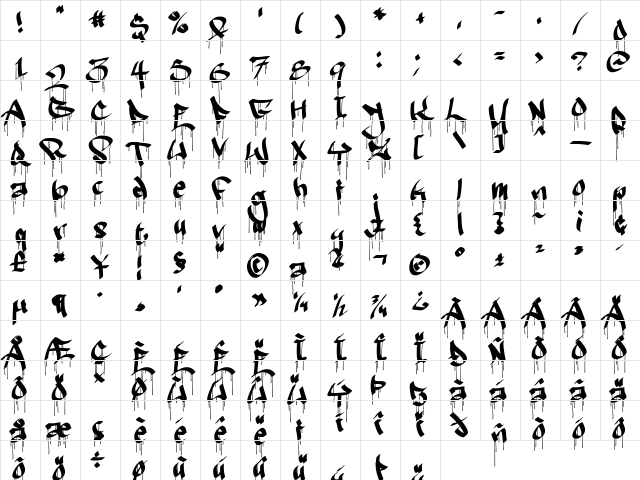
Ruthless Drippin TWO Regular Free Font
Ruthless Drippin TWO Regular
Foundry: M￿ Greb￿
Designer: M￿ Greb￿
Design Context for Ruthless Drippin TWO
Ruthless Drippin TWO is a composed and adaptable typeface that performs quietly and consistently across a wide range of design contexts.
Who designed the Ruthless Drippin TWO Regular font?
This font was published by M Greb. Check the technical specs section for copyright and designer details.